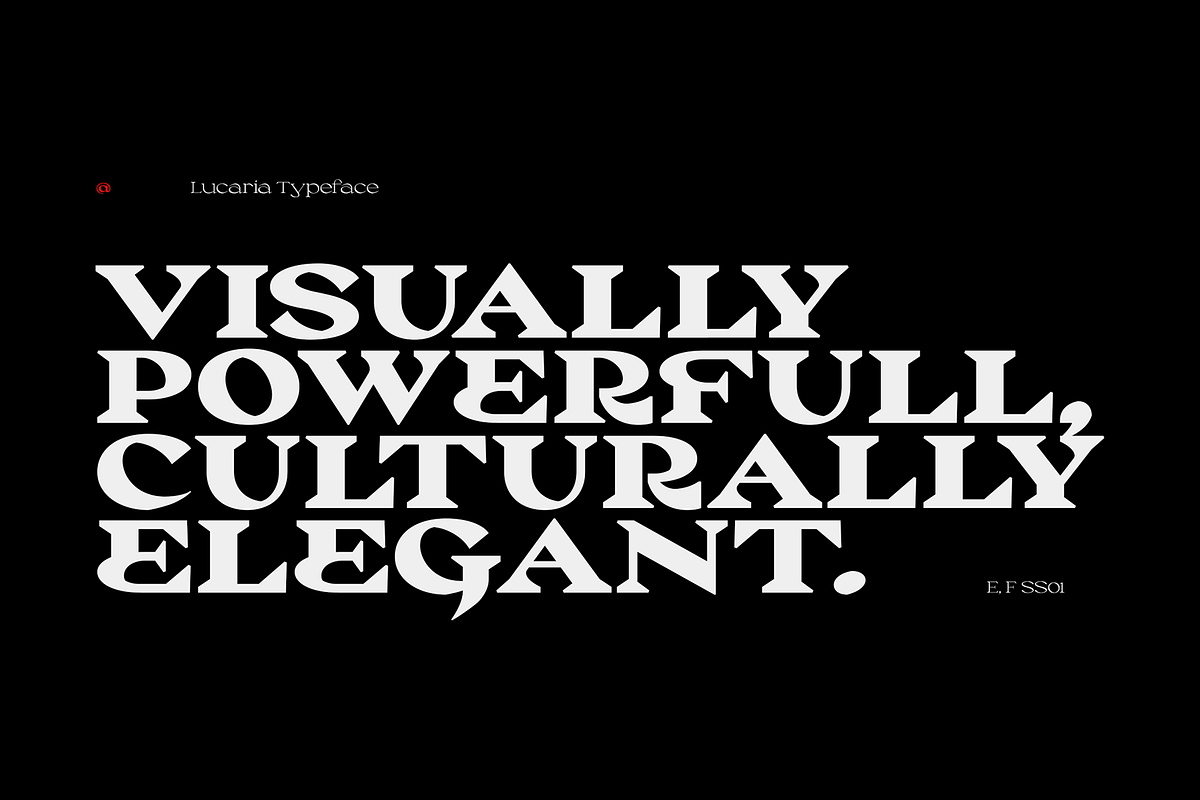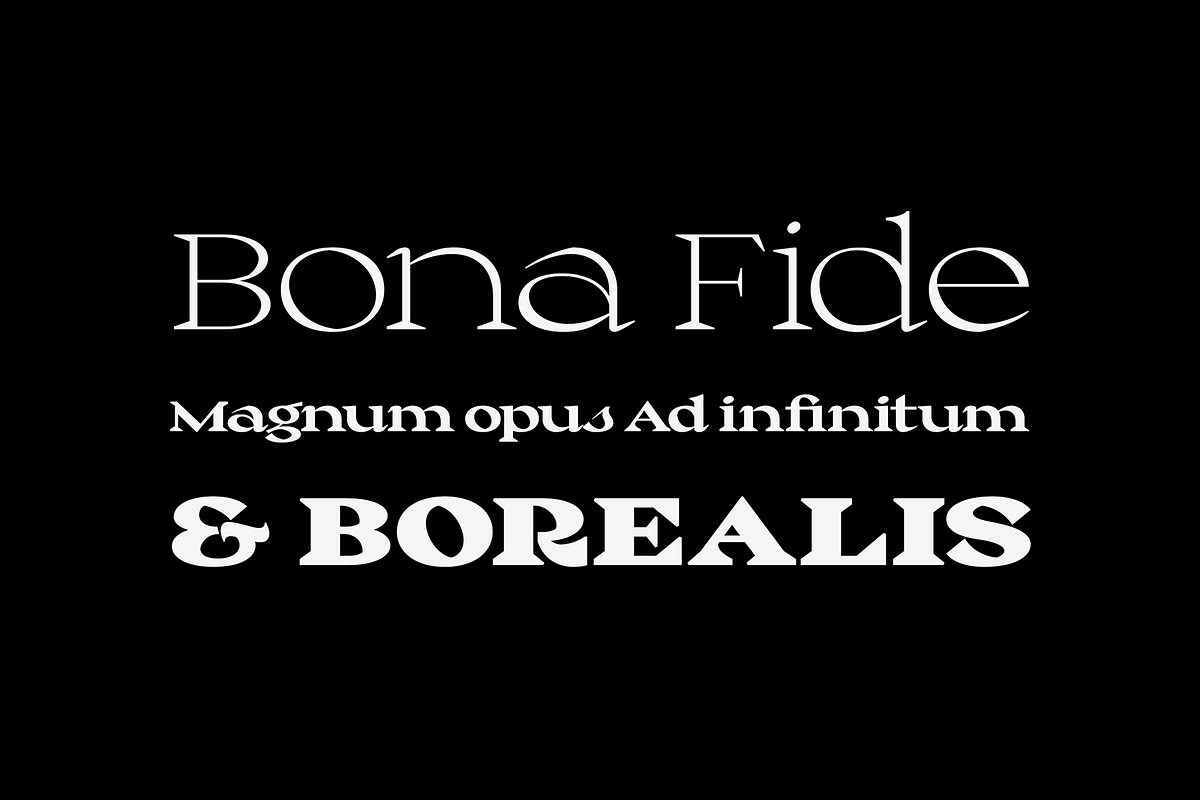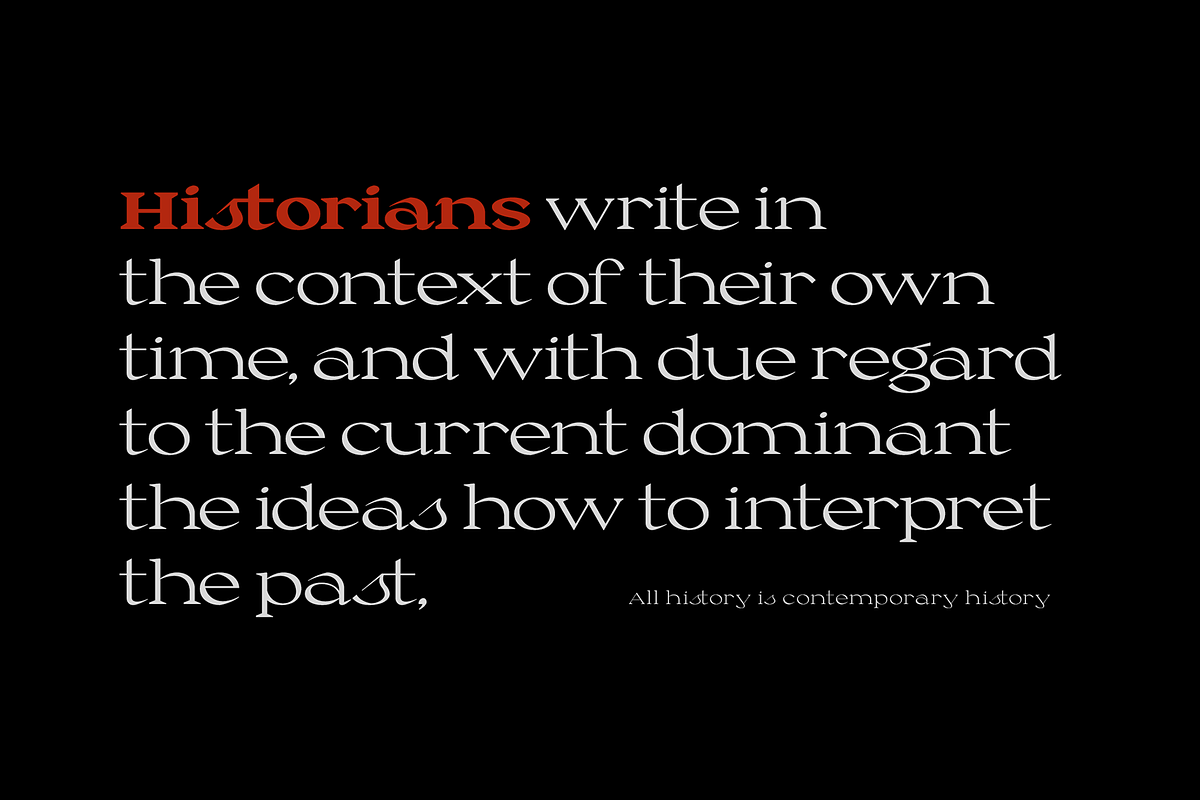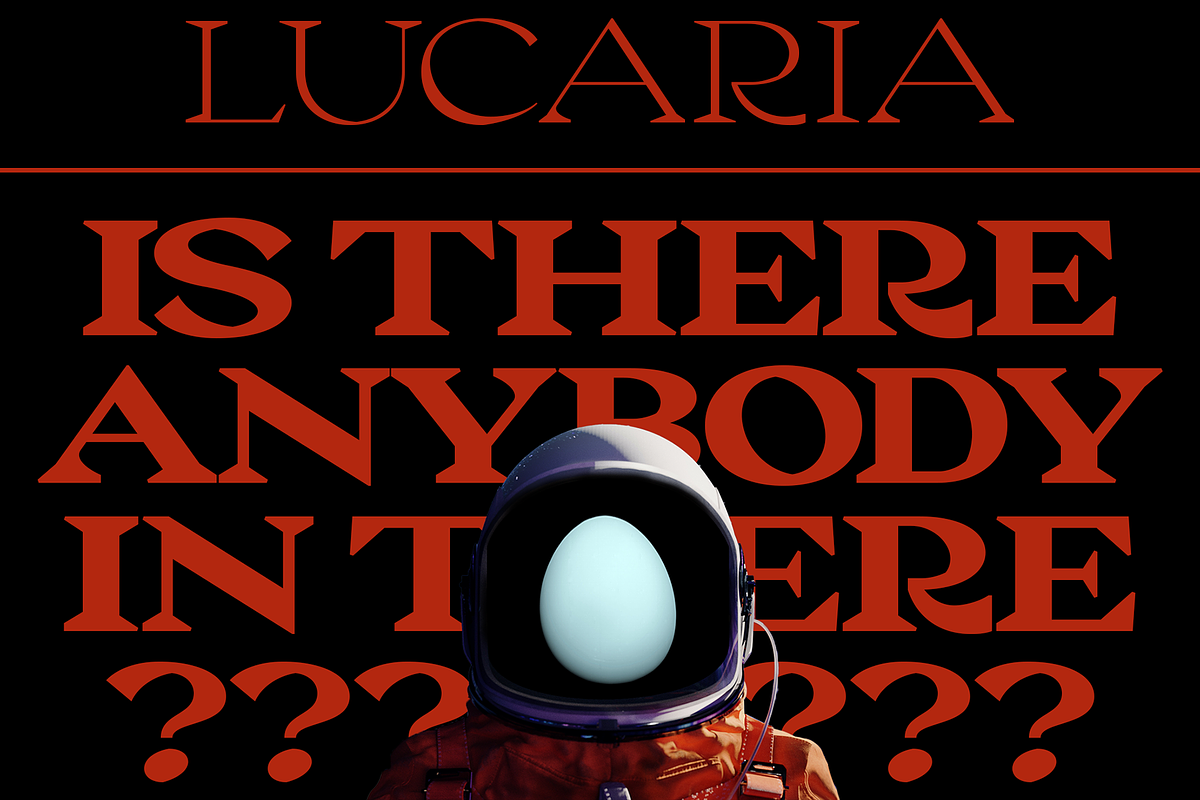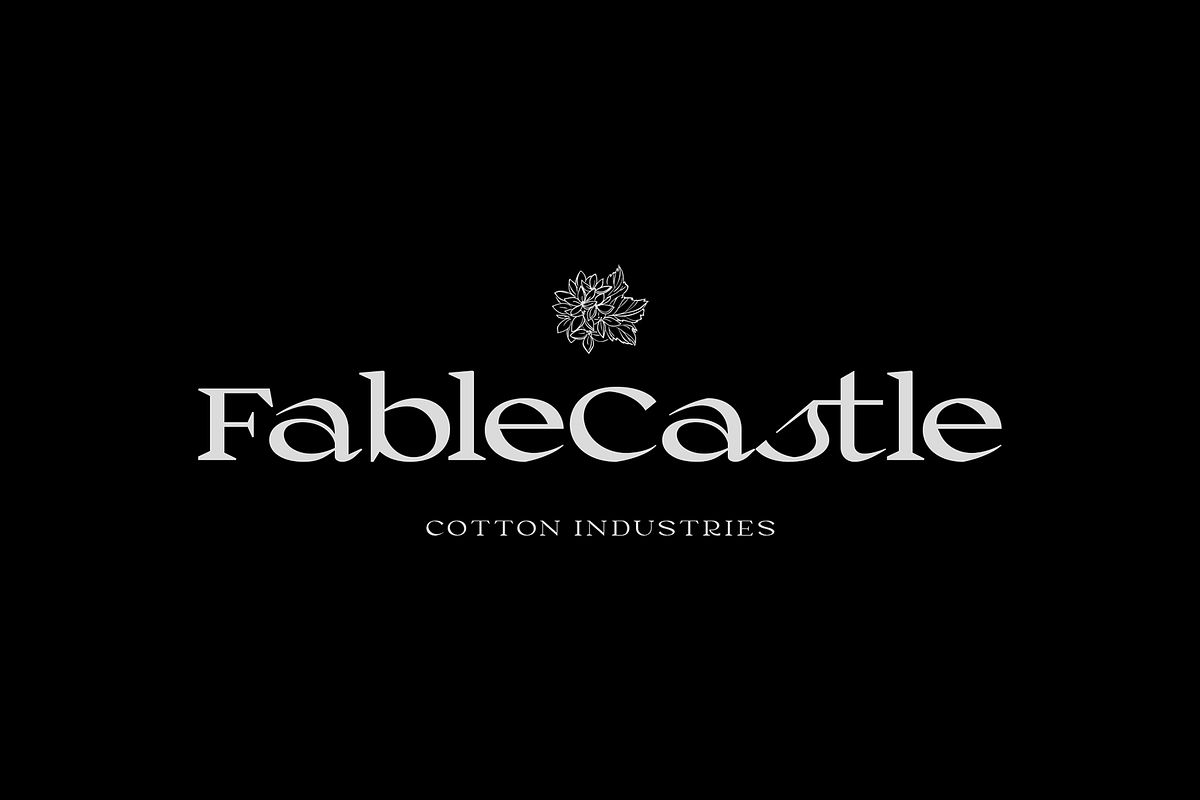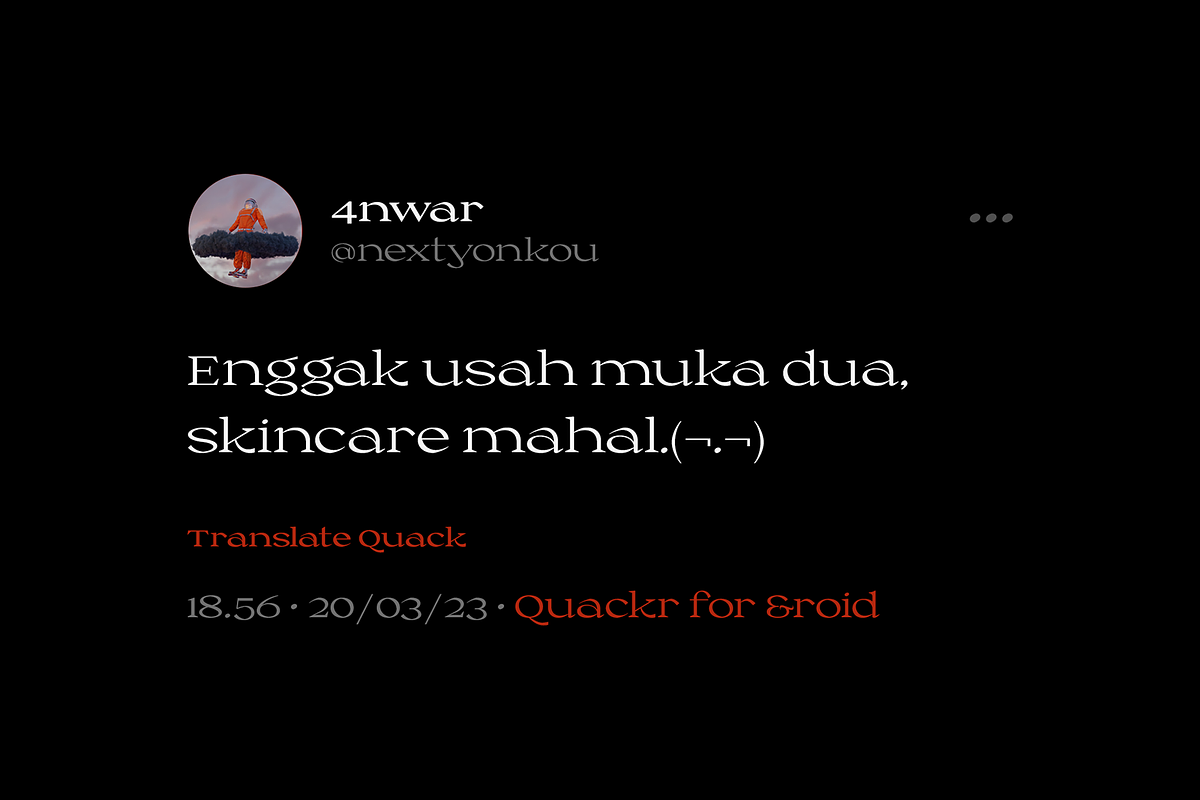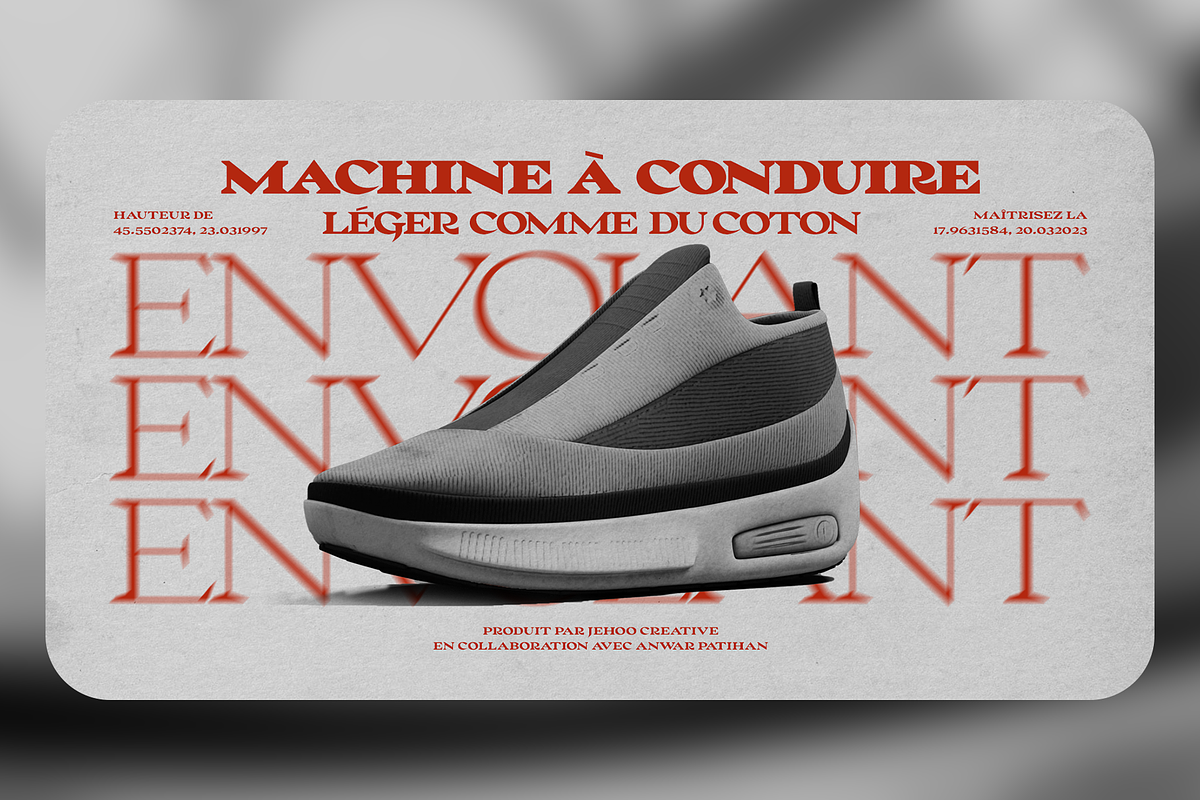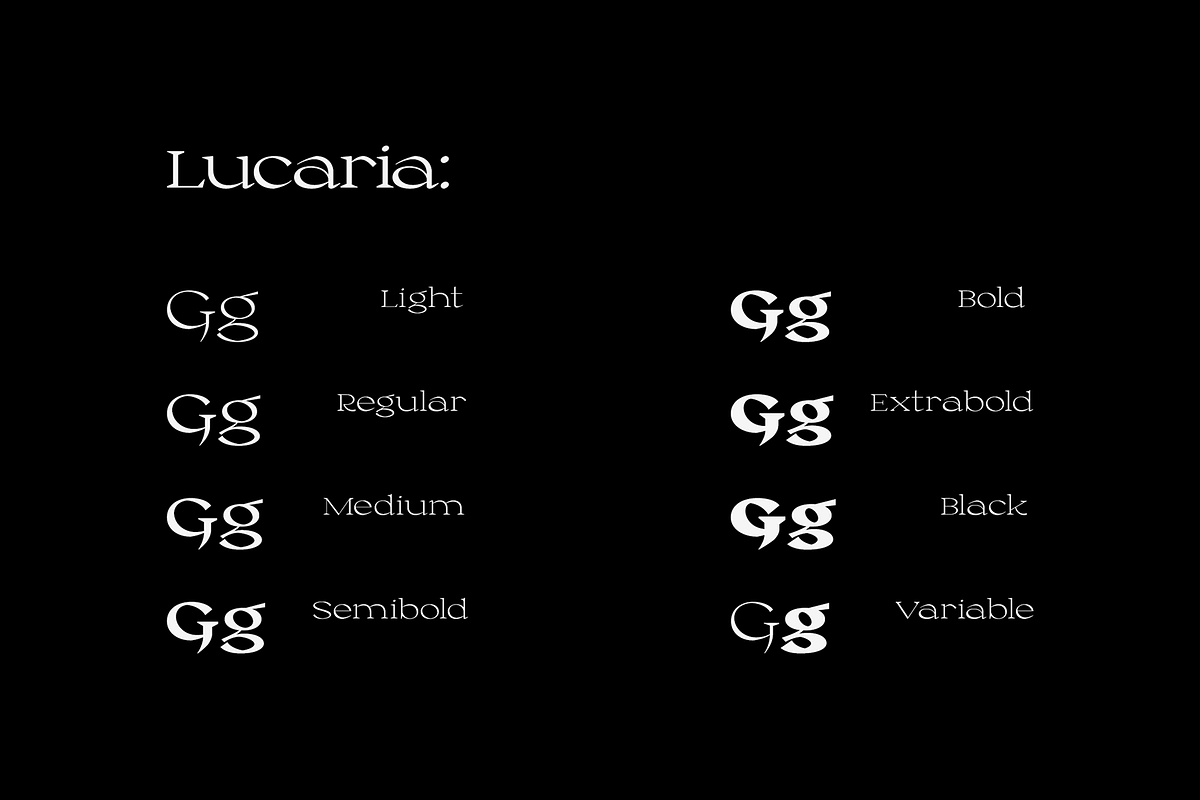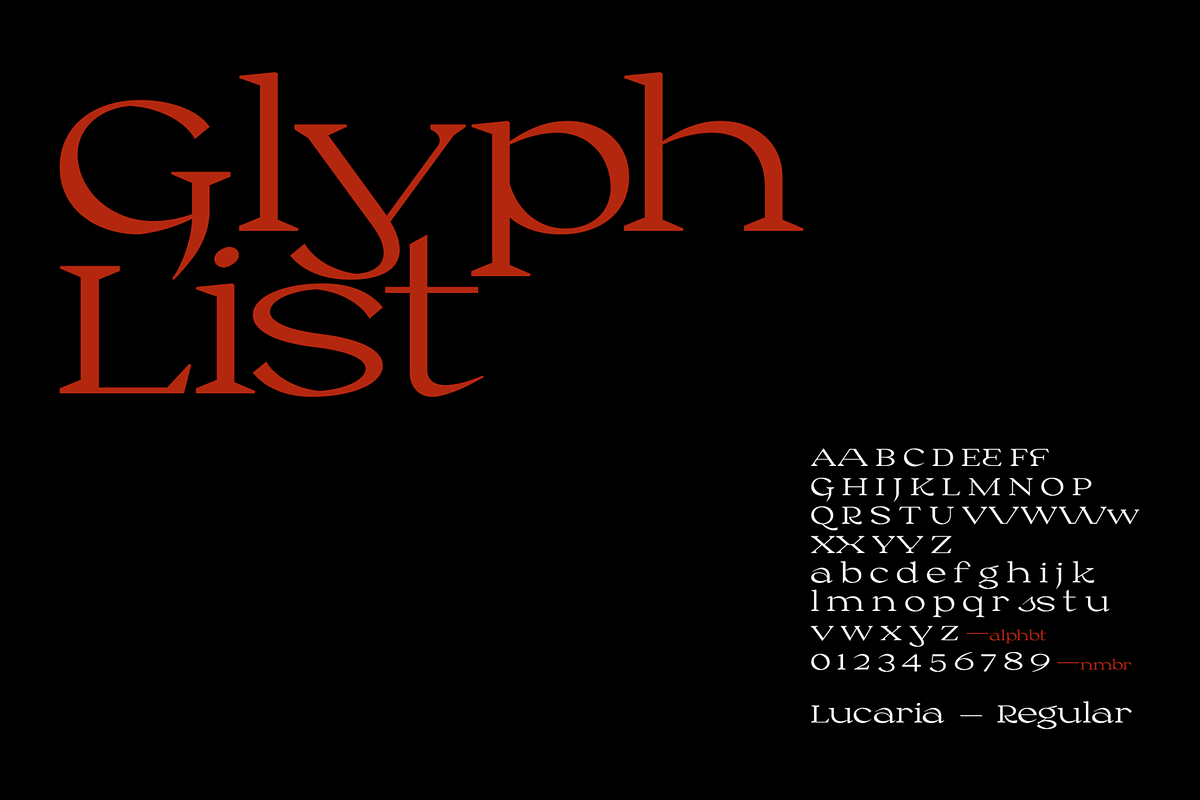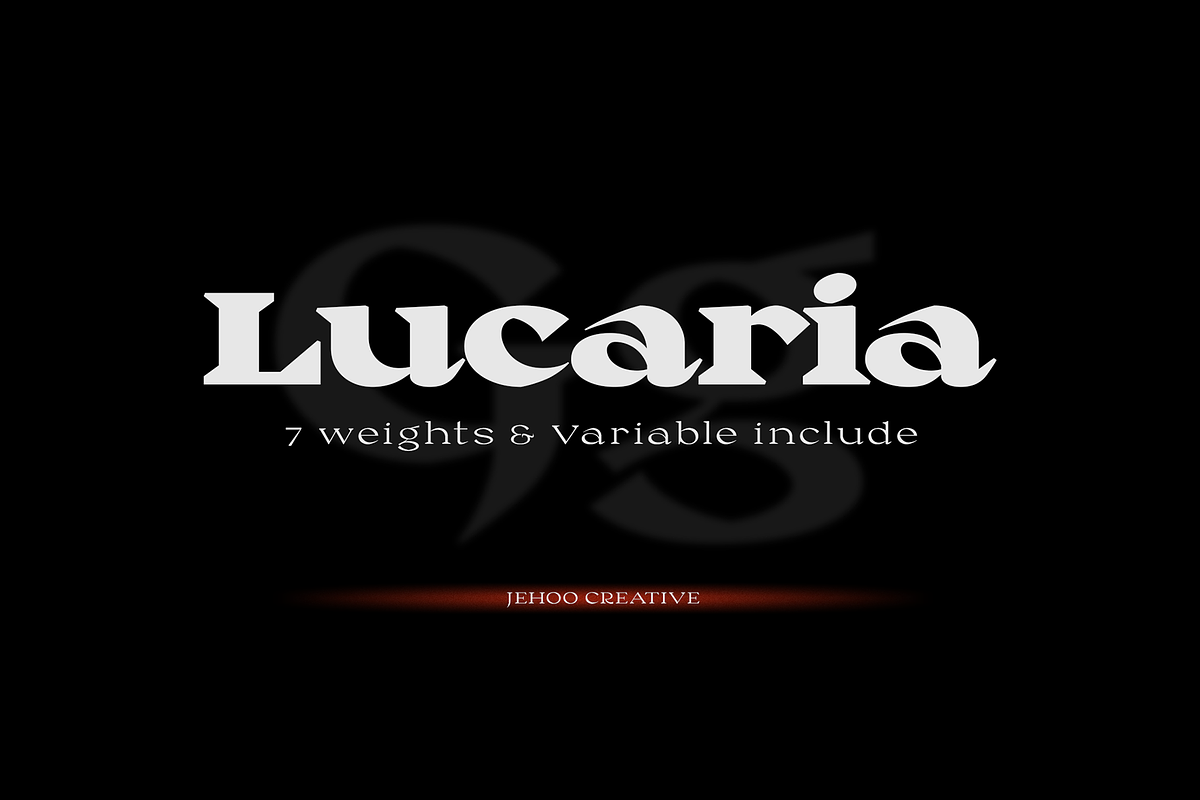
Lucaria - Display Serif Familia
Lucaria is a modern serif typeface that combines classic design with contemporary details.
The most distinctive feature of Lucaria is its strong shape on the edges, which gives the font a bold and commanding presence. This design element is complemented by the wide characters, which provide ample space for legibility and readability. The combination of these features makes Lucaria a great choice for displays and headlines.
This versatile font family is available in seven weights, including Light, Regular, Medium, Semibold, Bold, Extrabold, and Black, as well as a variable font for added flexibility. The variable font option allows designers to customize the weight makes Lucaria an ideal choice for a range of design projects, including branding, packaging, and editorial layouts.